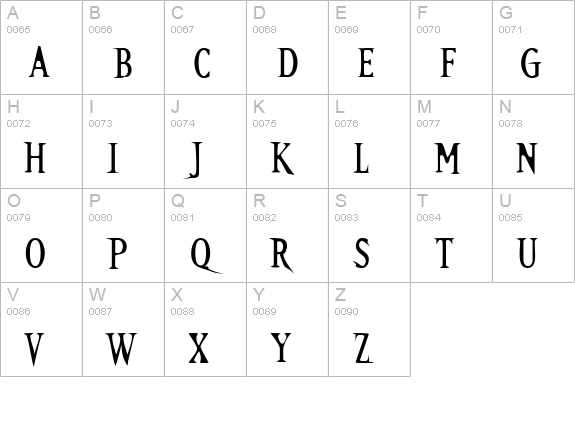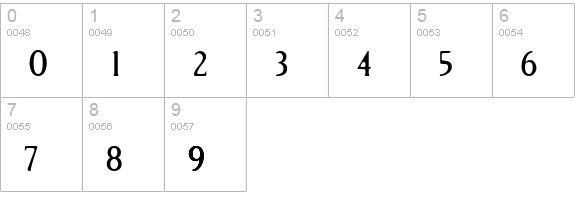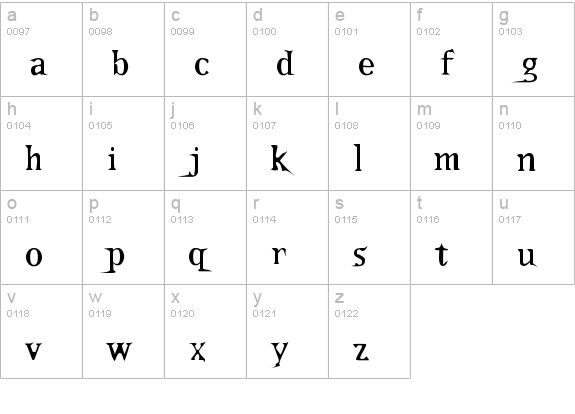
Kallamar Stout Font Details
Kallamar Stout font is a stunning typeface that exudes strength and elegance. Its bold and robust letterforms make a powerful statement, while its subtle curves and intricate details add a touch of sophistication. This font is perfect for creating eye-catching headlines, impressive logos, and impactful branding materials. Whether you're designing a poster for a rock concert or crafting a bold corporate identity, Kallamar Stout will command attention and leave a lasting impression. What makes Kallamar Stout even more appealing is that it is freely available to download at FontsMarket.com. This means that designers, creatives, and typographers can easily access this remarkable font without any hassle. No need to worry about breaking the bank or settling for subpar alternatives – Kallamar Stout offers both quality and affordability. With its versatile nature, Kallamar Stout can be used across various design projects. Its clean lines and distinct character make it readable at any size, ensuring legibility even in small print. Whether you're creating a striking poster, a captivating book cover, or a memorable website, Kallamar Stout will elevate your designs to new heights. So go ahead and download Kallamar Stout from FontsMarket.com today. Unleash your creativity and let this remarkable font be your secret weapon in creating visually stunning and impactful designs. Embrace the power of Kallamar Stout and watch your projects come to life with style and flair.